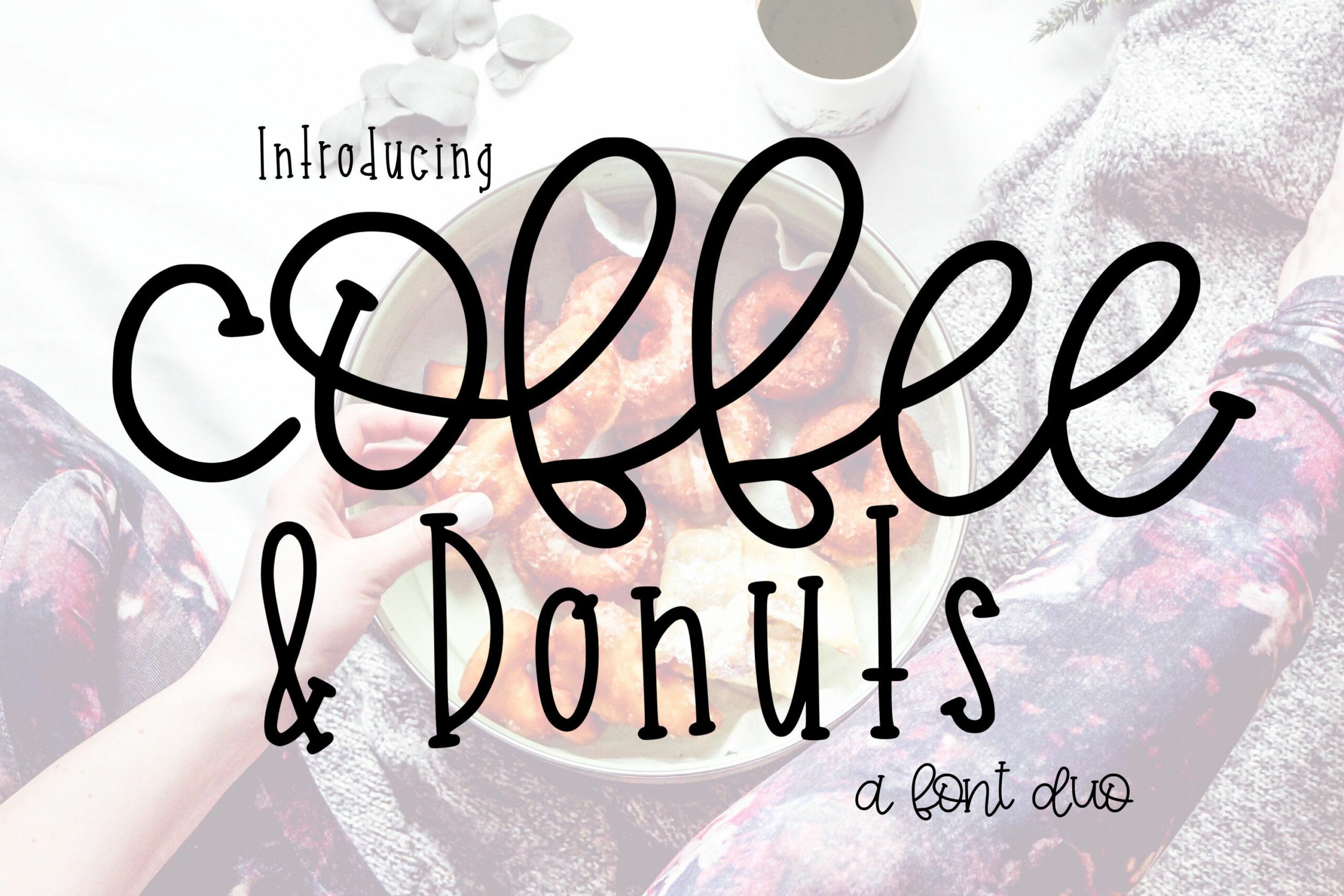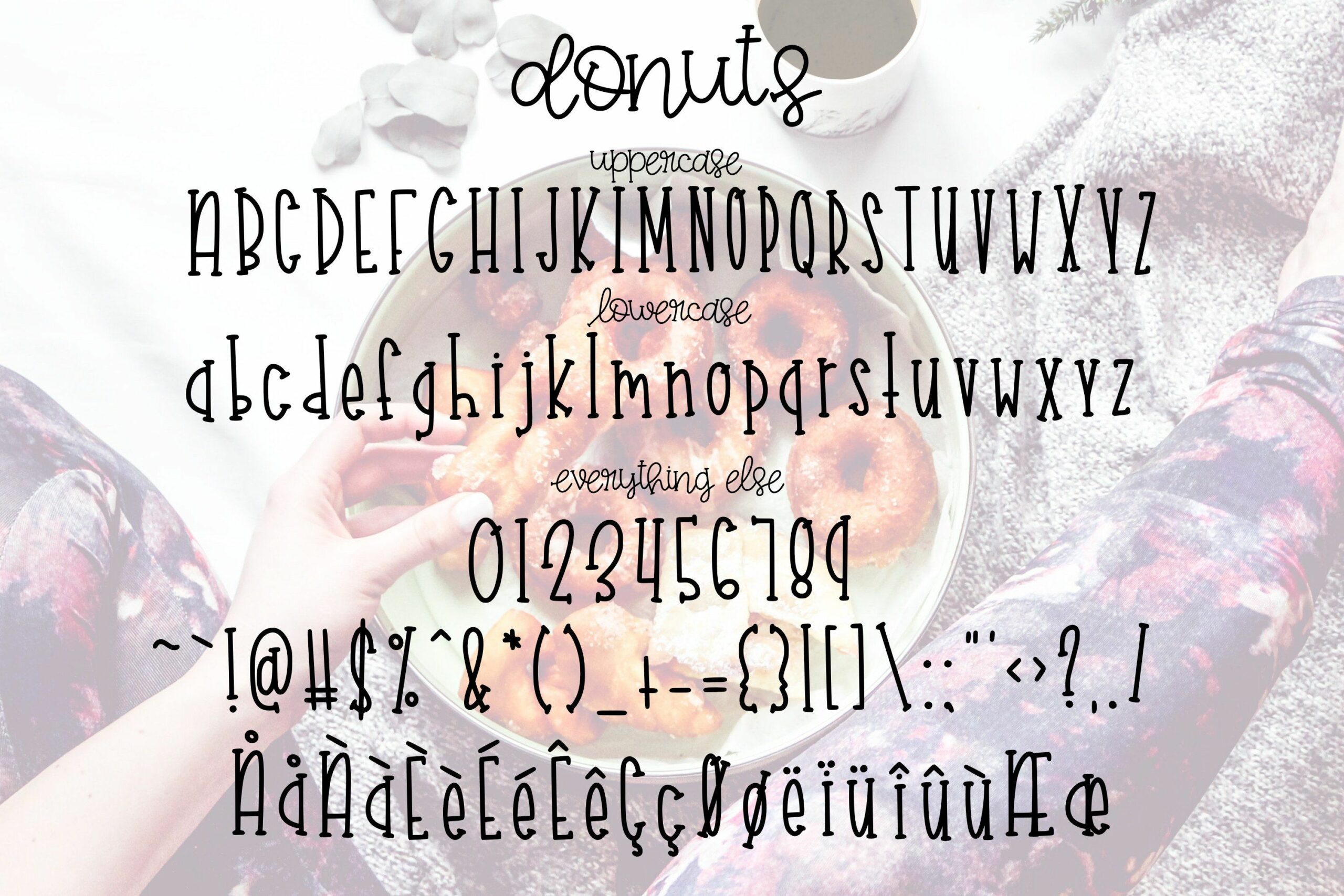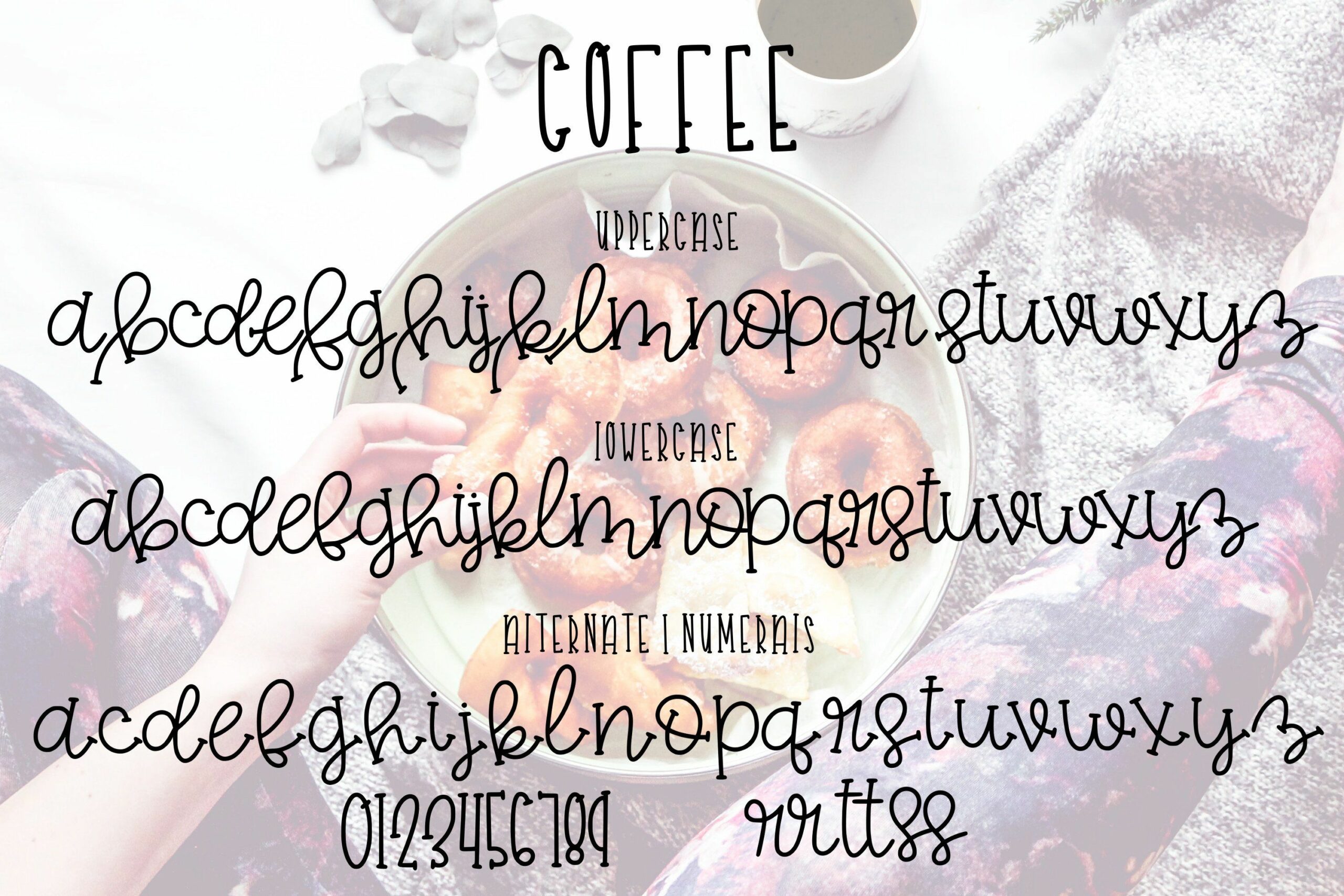
HomeScript FontsCoffee and Donuts (Font Duo) Script Fonts Coffee and Donuts (Font Duo) FacebookXPinterestWhatsApp 1 of 3 ... ... ... About Coffee and Donuts (Font Duo) Coffee and Donuts is a tasty font duo of a hand lettered script, complete with alternates, and a serif print font. Paired together, they are the perfect combination — just like coffee and donuts! DOWNLOAD NOW People also explored Murchison Font Kampium Lost Dolly Font Jom Melaya Font Flora Font Watermelon Font Maulysia Font Velvet Script Guy Doodles 328 0 TagsCoffee and Donuts (Font Duo) Previous articleSteady ScriptNext articleChristmas Vibes: A Whimsical Christmas Font LEAVE A REPLY Cancel reply Comment: Please enter your comment! Name:* Please enter your name here Email:* You have entered an incorrect email address! Please enter your email address here Website: Save my name, email, and website in this browser for the next time I comment. Personal Use Free Cranberry Gin Personal Use Free Read more about this font Charlie Personal Use Free Read more about this font Zelega Zenega Personal Use Free Read more about this font Mellgatha Personal Use Free Read more about this font BLOG 5 Fonts That Will Dominate Design Trends in 2026 5 Fonts for 2026 That Will Dominate Design Trends Typography plays a critical role in visual communication, and as we look ahead to 2026, it’s... Free vs Paid Fonts: Why Investing in Premium Fonts Is Worth It Elegant Wedding Invitation Fonts – Handwritten & Script Fonts To increase your work productivity, choose the most readable fonts.